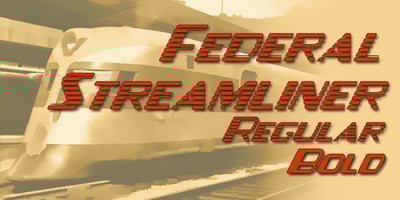
Federal Streamliner Font Family was designed by Paul James Lloyd and published by Greater Albion Typefounders. Federal Streamliner contains 2 styles and family package options. Federal Streamliner was inspired by lettering seen on the side of a 1950s/60s era train. It speaks of the designs of the ‘streamline’ era and is ideal for retro projects invoking the 30s, 50s or 60s needing a simple distinctive display face.